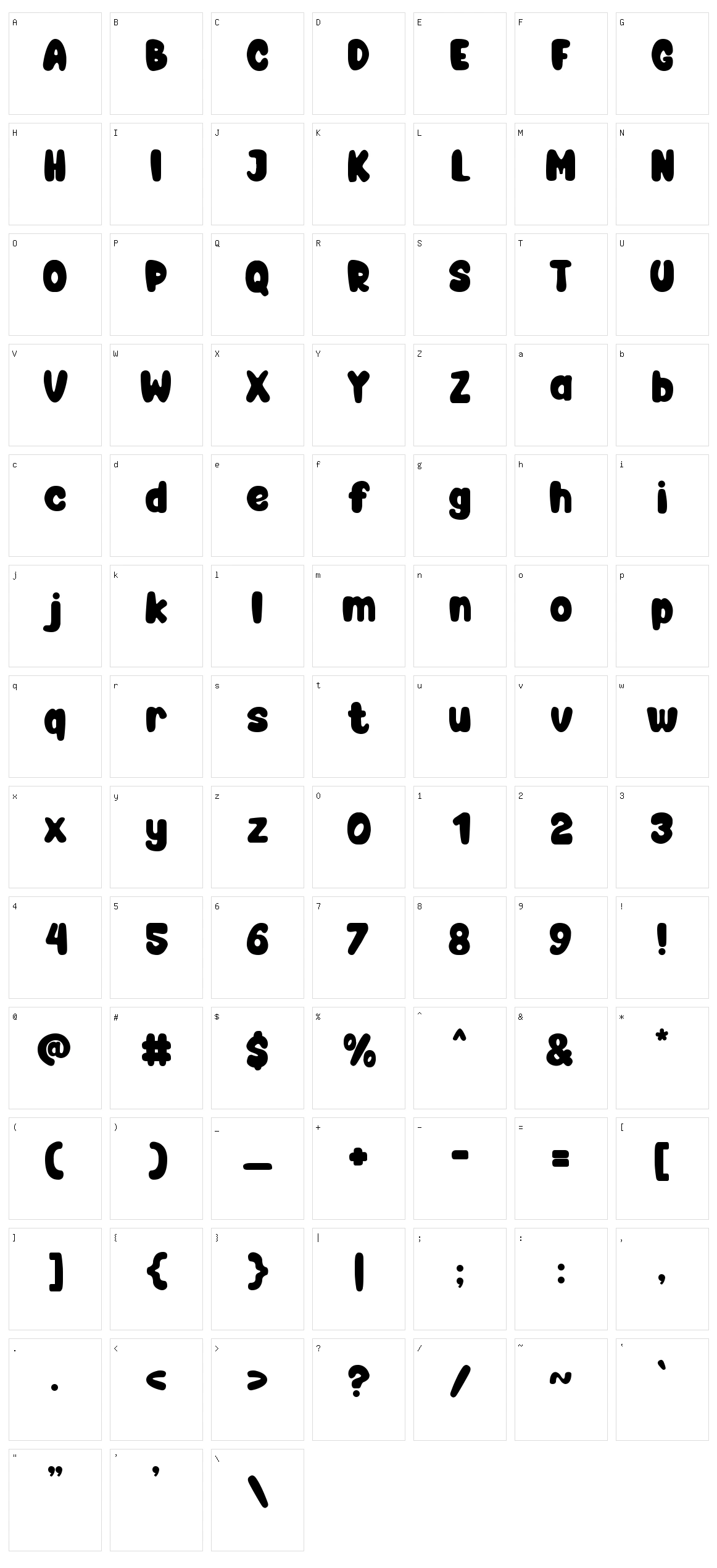
The free font Second Grade is carefully designed by Pinisiart, showcasing a thoughtful balance of creativity and usability and falls under the Cartoon font style. When you download the ZIP file, it contains only 14.95 KB of font files, making it lightweight and quick to download. Please review the license details below to understand permitted usage and distribution rights. If license information is not available, we recommend using this font for personal projects only or contacting the author directly for commercial usage permissions.